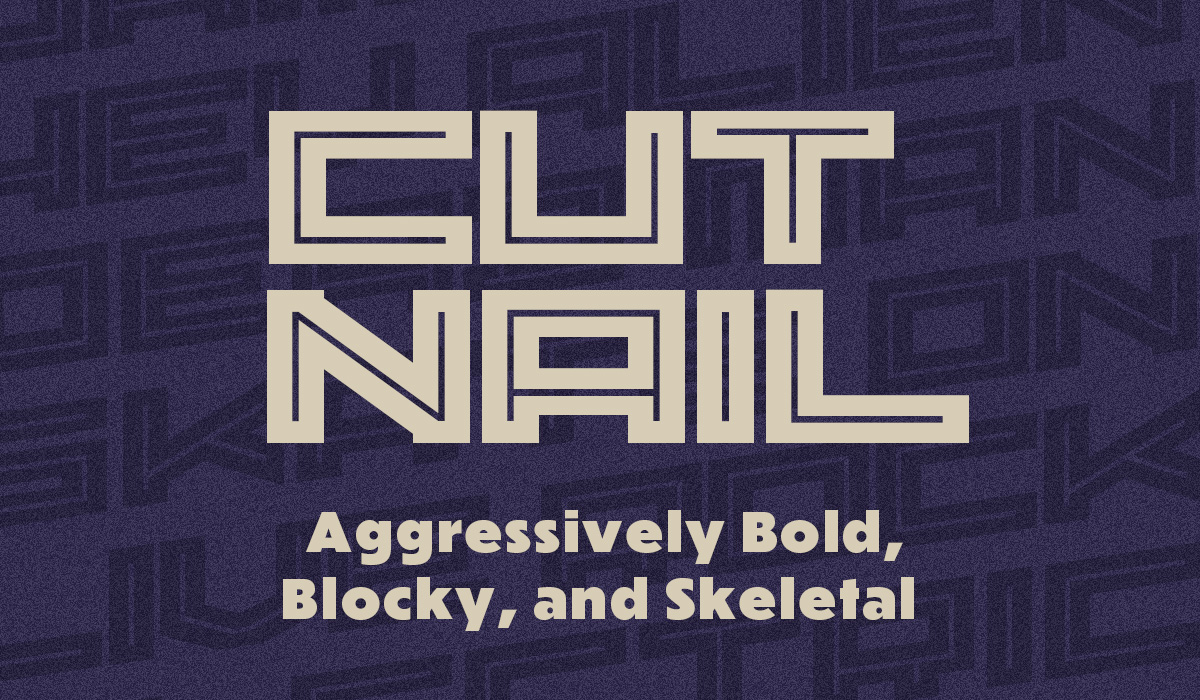
Cut Nail Inline Font
Cut Nail Inline is a display font created for logos and headlines. Named after the hardware that holds floorboards down and keeps coffins sealed, its both skeletal and aggressively blocky.